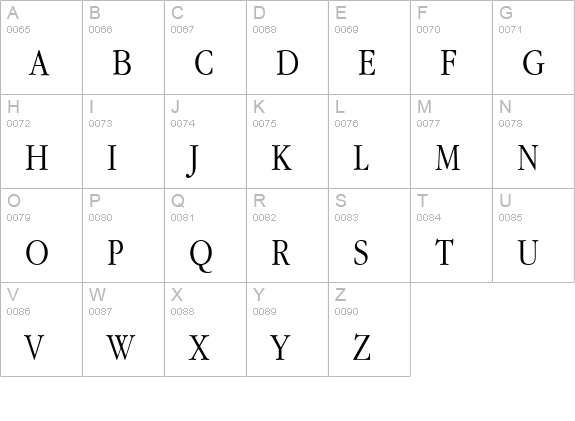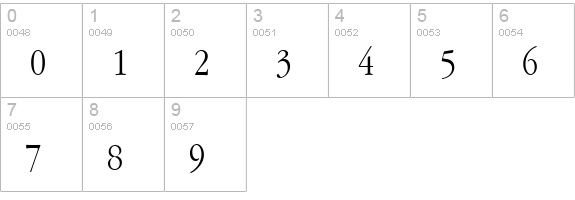
Apple Garamond Light is a refined, elegant variant in the Apple typeface family \xE2\x80\x94 well suited to elegant body text, refined sub-headings, and luxury branding.
Apple Garamond Light is a timeless and elegant font that exudes sophistication and class. Its delicate and refined design makes it perfect for various design projects, from branding to editorial layouts. With its slender and graceful strokes, Apple Garamond Light adds a touch of finesse and subtlety to any text. The best part about Apple Garamond Light font is that it is available for free download at FontsMarket.com. This means that you can easily access and use this exquisite font in your projects without any cost. Whether you are a professional designer or a hobbyist, Apple Garamond Light font is a versatile and stylish choice that will elevate your design work to new heights.